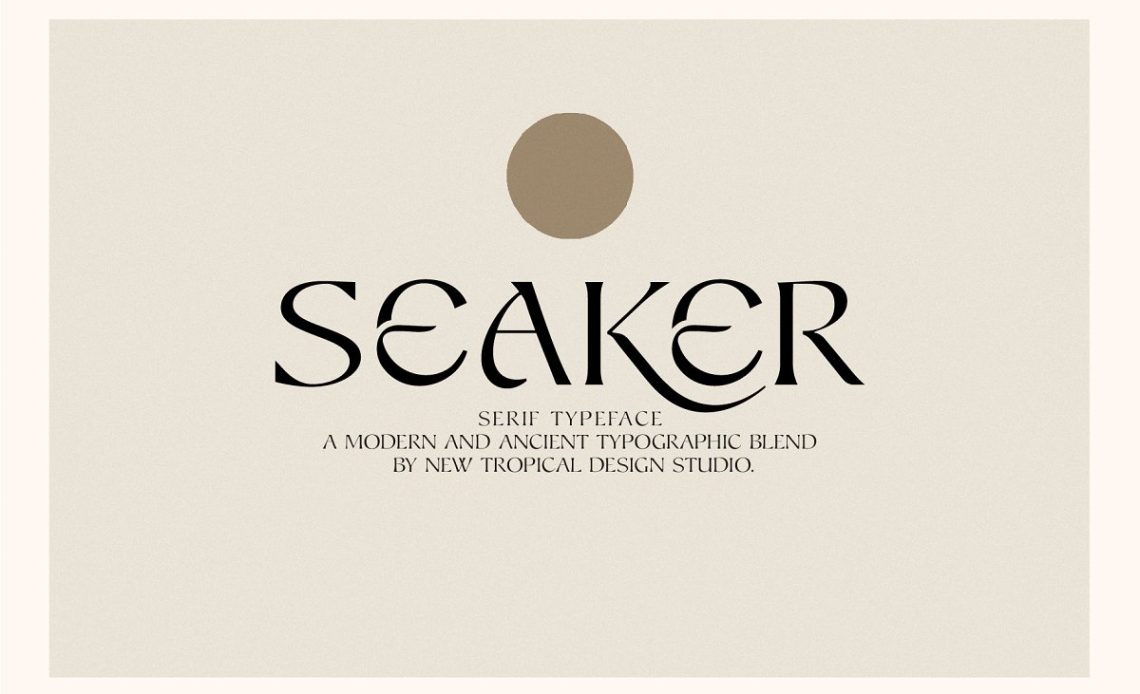
Looking for the perfect serif font for your book title? Look no further than Seaker, the latest creation from New Tropical Design Studio. With a blend of modern and ancient typography, Seaker creates a sense of nostalgic wonderlust that will captivate your readers.
What sets Seaker apart from other serif fonts is its dual uppercase letters, allowing for endless possibilities to mix and match letters to create a unique and eye-catching title. Plus, subtle irregularities have been added into the letters to give an aged, handmade aesthetic that will make your book stand out on any shelf.
But Seaker isn't just for book titles. With multilingual support, including Polish, this font is perfect for any project where a classic and elegant look is desired. And with OTF, TTF, WOFF, WOFF2, and SVG font files included, you can use Seaker on any platform or device.